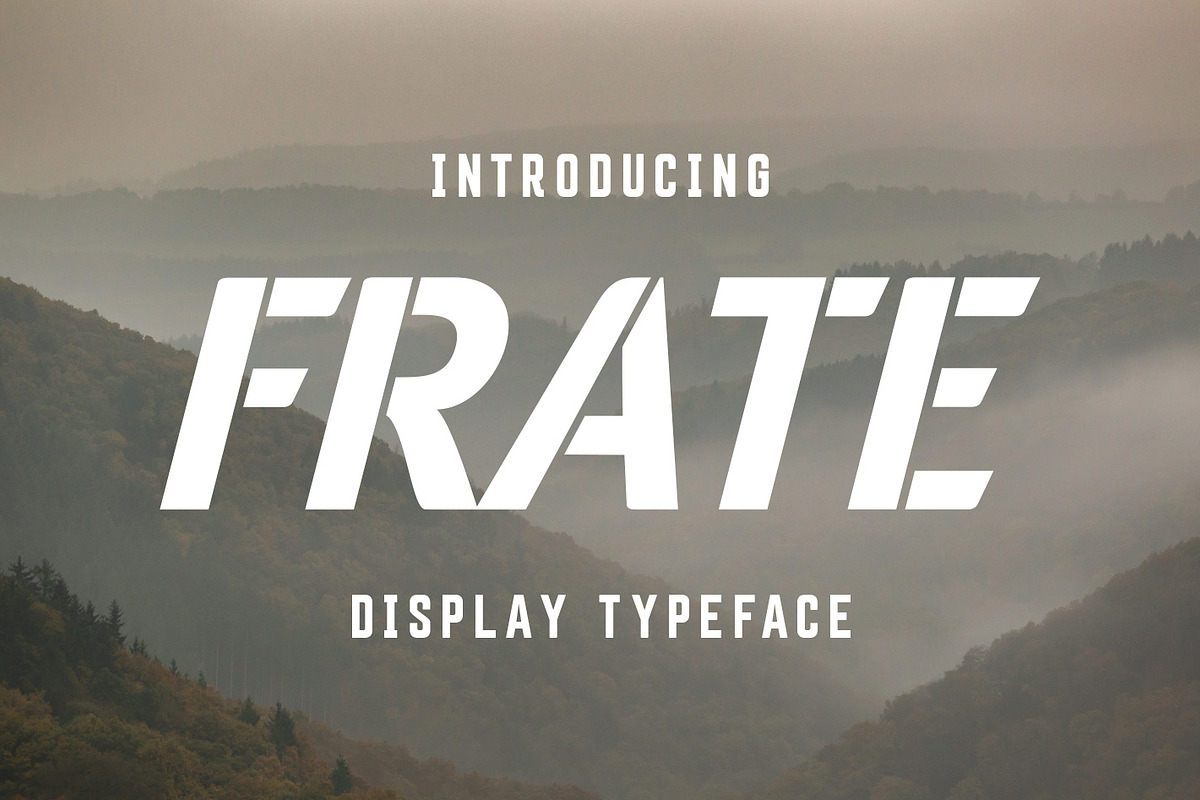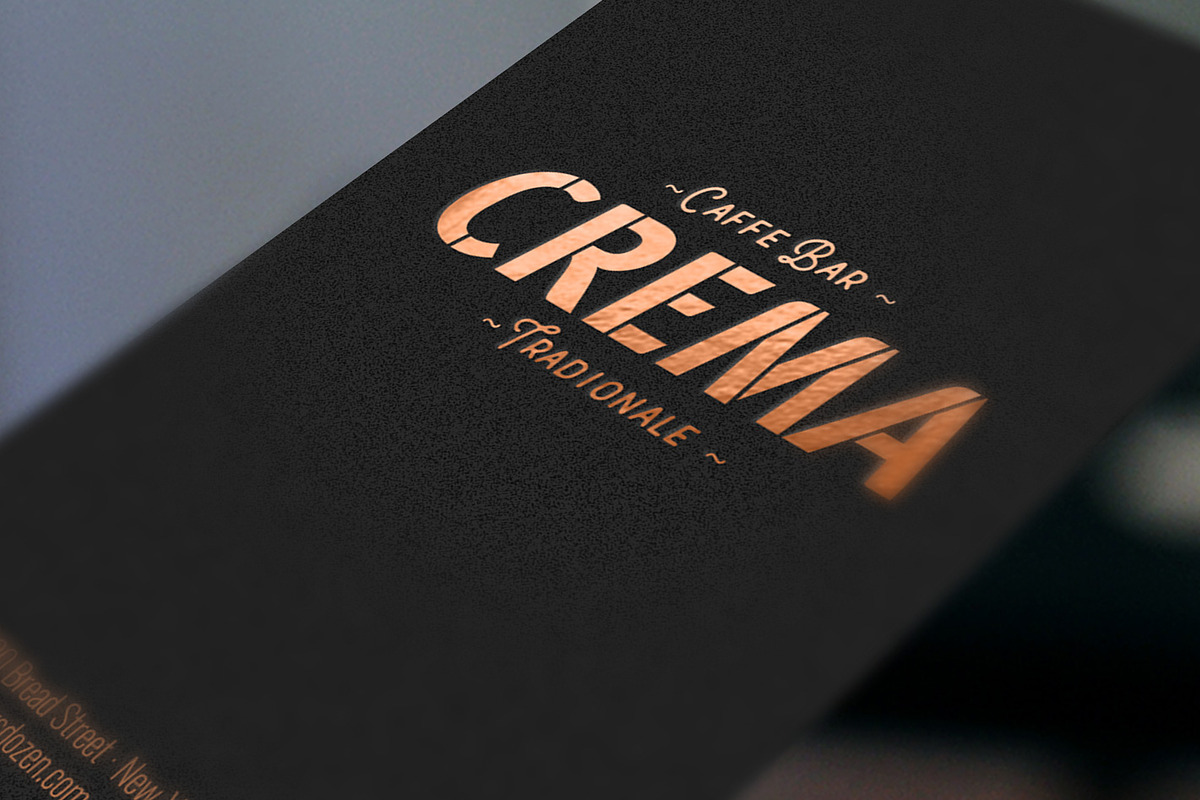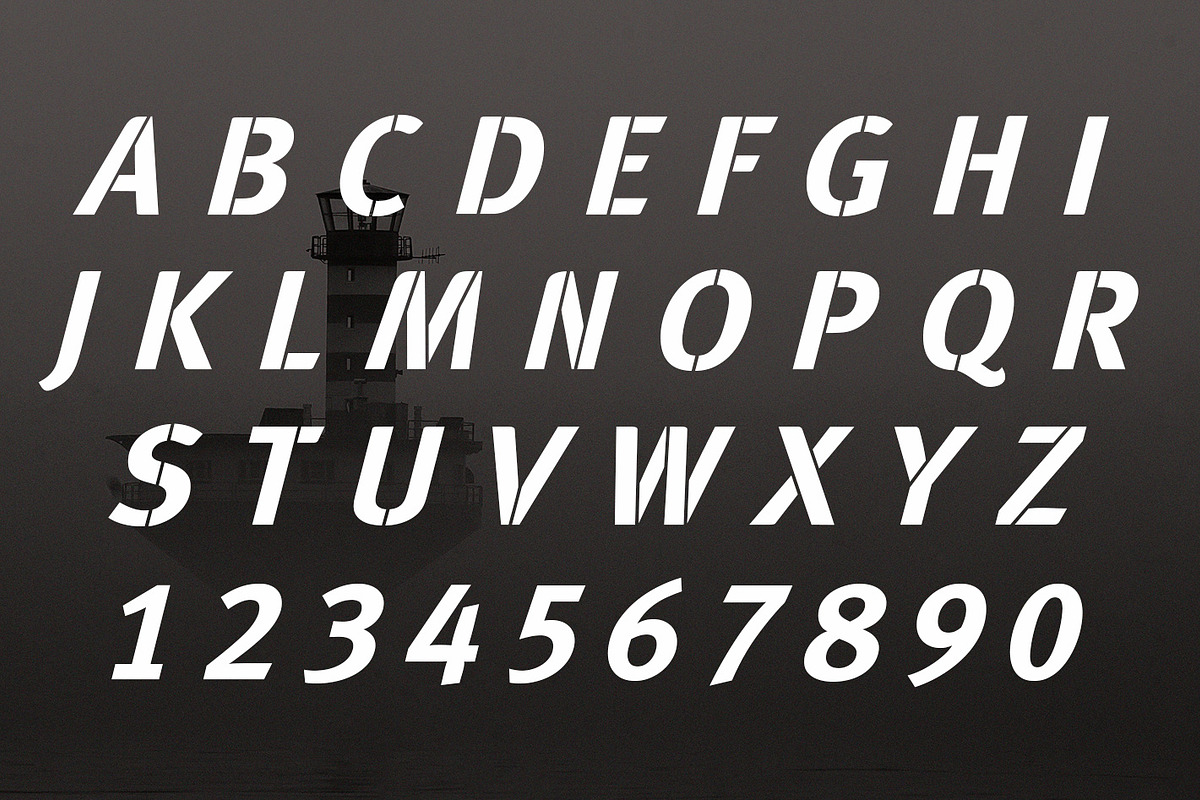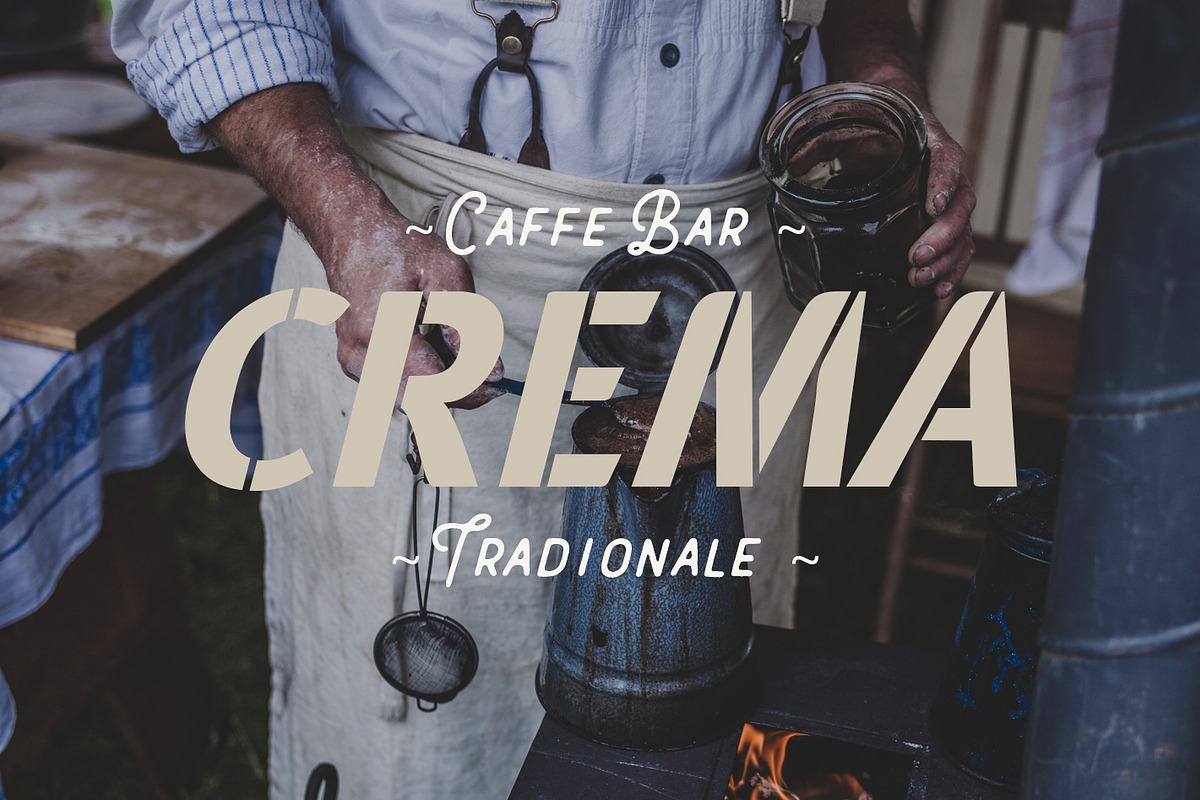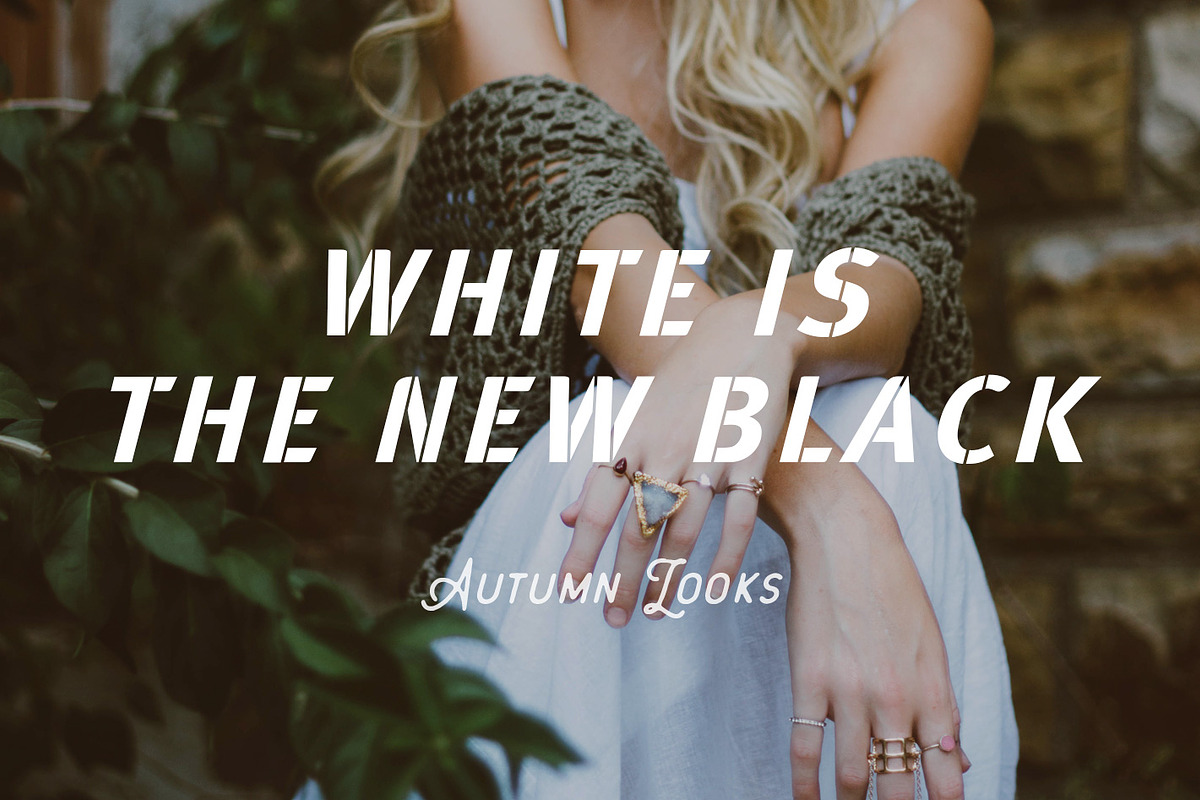
Frate Typeface
Introducing Frate Typeface Capitals & Lower Case
Frate is a display typeface with a confident personality. Use it as a logo, signature branding element, for packaging, ad campaigns, publication headlines, Tees and apparel.
The personality of this font is equally at home for brands in a whole range of categories including; architecture, property development, cafe and restaurant, retail, fashion, sport & fitness, travel, transport, freight & logistics, engineering, science & pharma to name a few.